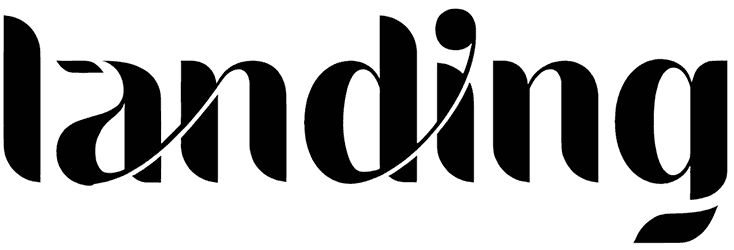
Landing Font
The Landing font, while being elegant, can be included in the collection of hand-letter fonts because there are a series of unconnected lines in some characters; it can make this font special and in the design of many wedding invitation cards, luxury parties, t-shirts, and many brands such as watches and perfumes.
The luxury design of this font helps you to make your presentation look more professional and authoritative.